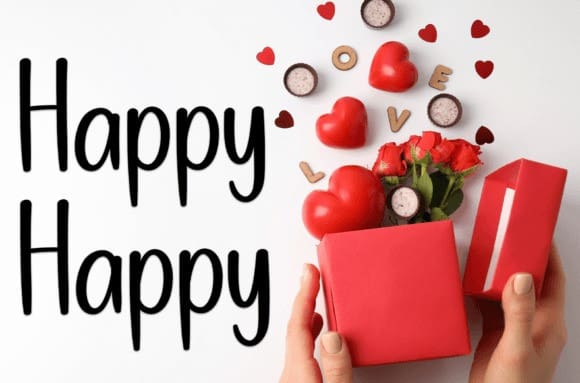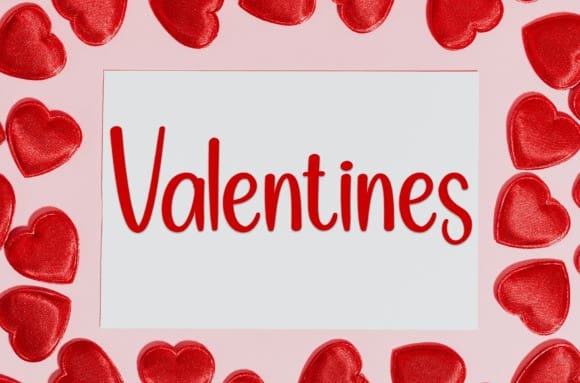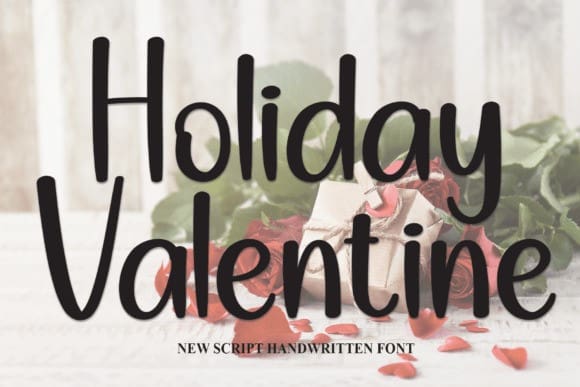
Holiday Valentine Font
Holiday Valentine Font is a sweet and friendly handwritten font. Cute and fun, this font is ideal for writing wedding invitations, cards, or any other design that might need a fun touch!